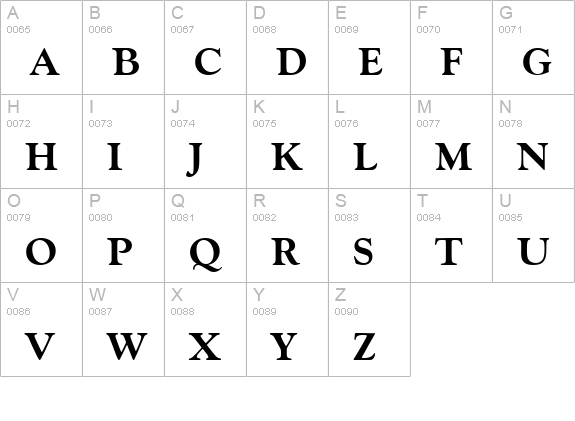
GoudyOldStyTEEExtBol Font Details
GoudyOldStyTEEExtBol is a striking and bold font that exudes elegance and sophistication. With its timeless appeal and classic design, this font is perfect for adding a touch of sophistication to any project. The strong and solid strokes of GoudyOldStyTEEExtBol make it ideal for headlines, titles, and other prominent text elements. The best part? GoudyOldStyTEEExtBol is available for free download at FontsMarket.com. This means you can easily access this stunning font and use it in your projects without any cost. Whether you're working on a professional design or a personal project, GoudyOldStyTEEExtBol is a versatile font that will elevate your work to the next level. Download it today and add a touch of timeless elegance to your creations.